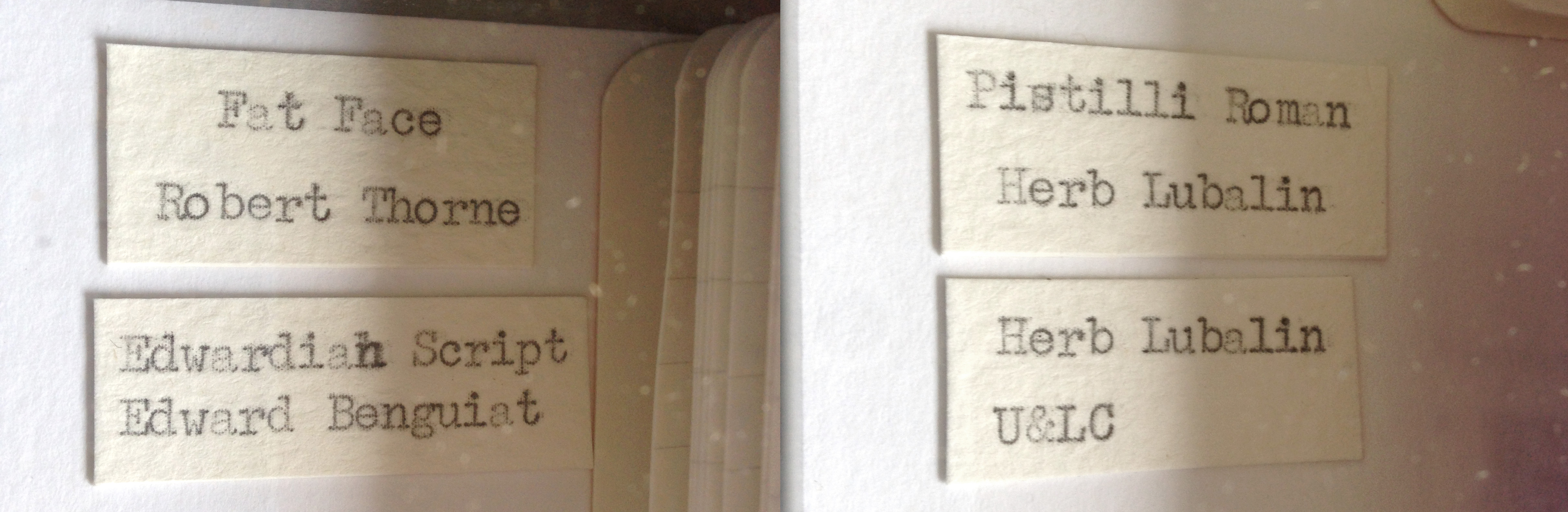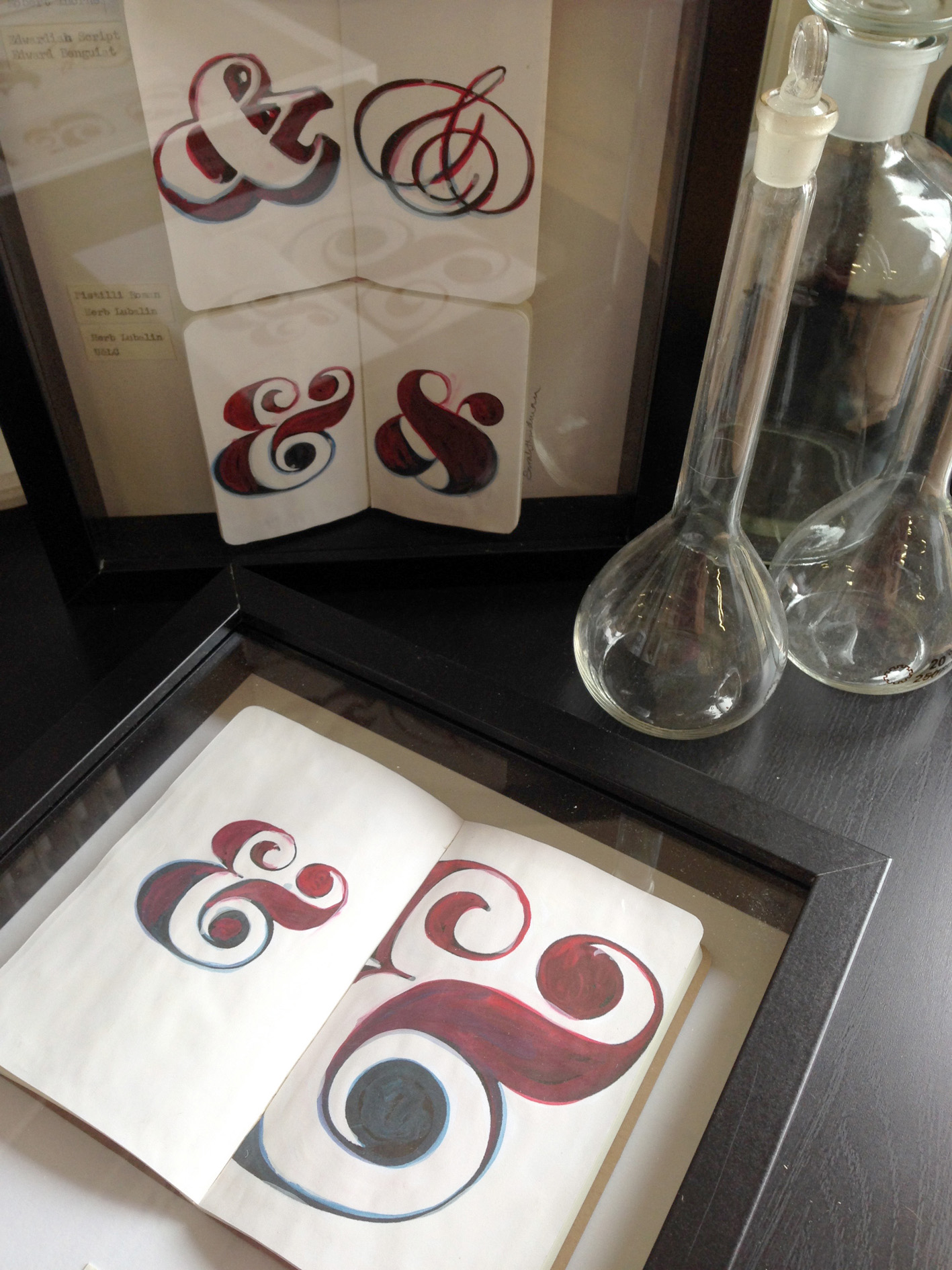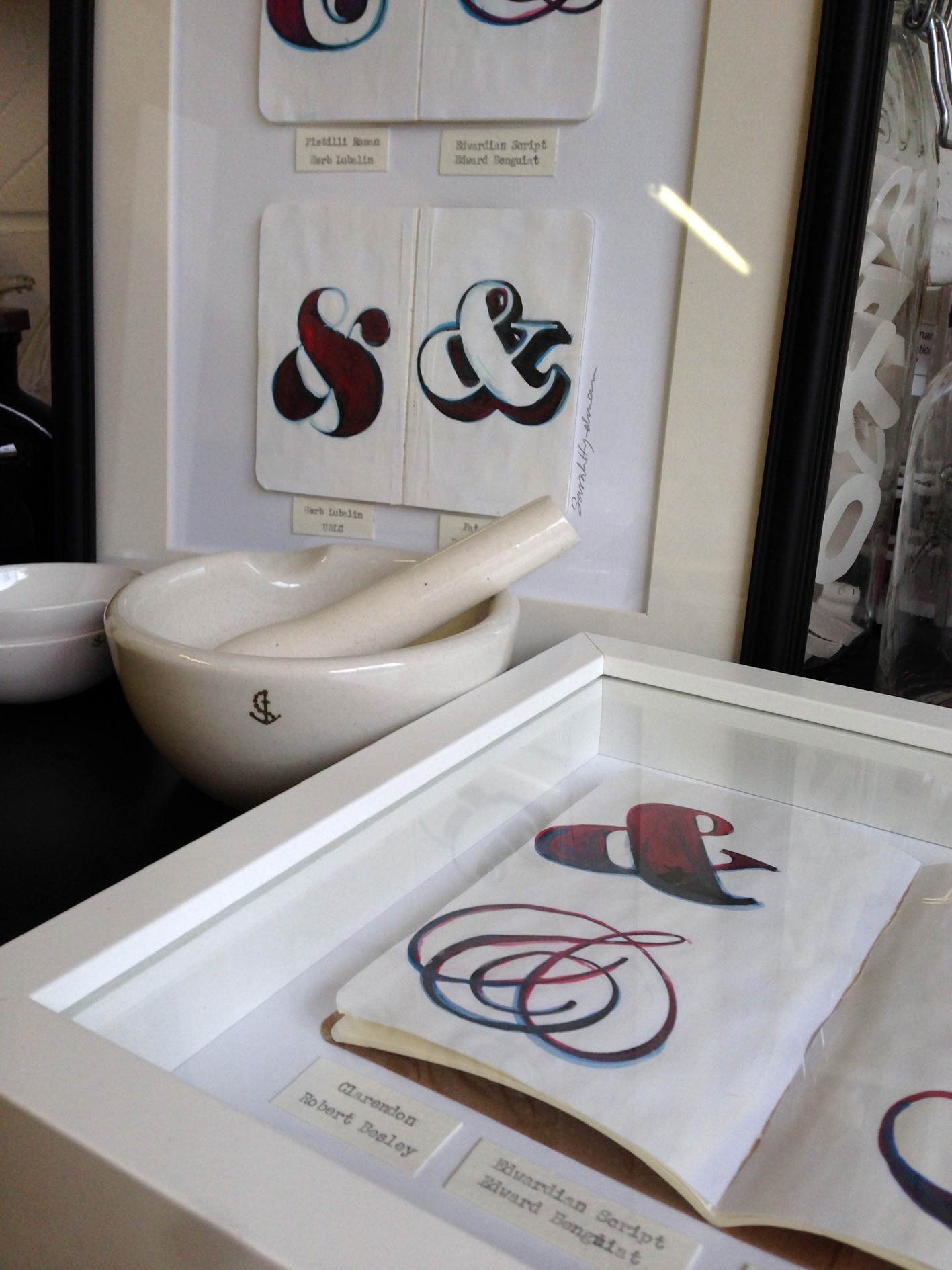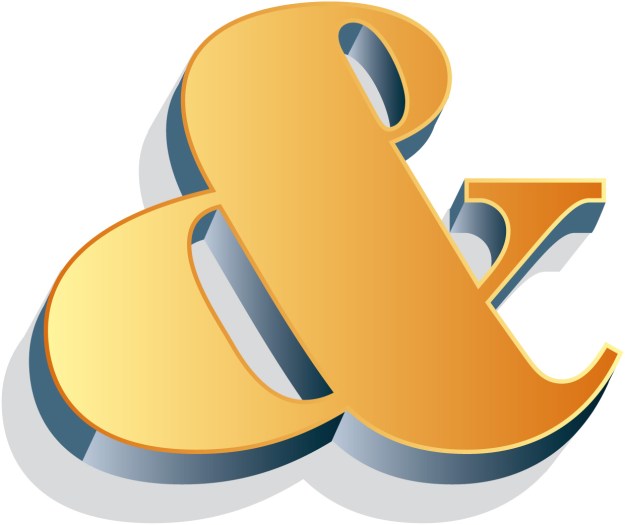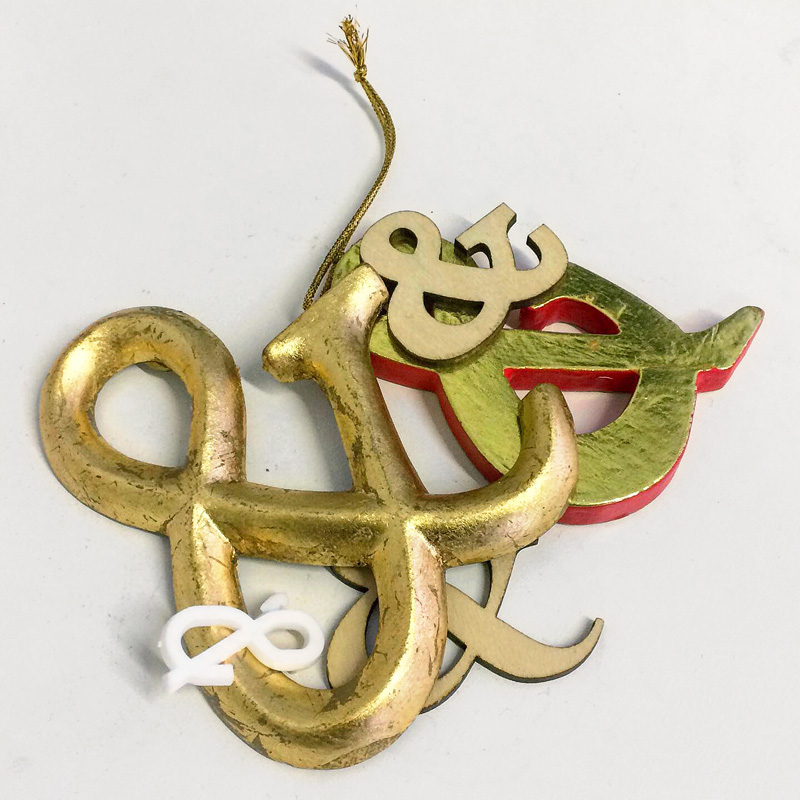
What do you call a collection of ampersands?
What’s the collective noun for ampersands?
I think that an ampersand is an invitation to imagine what will come next. It’s a continuation of an idea, a conversation or a story. The ampersand is sometimes considered to be the 27th letter of the Latin alphabet, originating from the letters ‘et’, Latin for ‘and’, which have been combined to create a single glyph. It’s a character that there is wide affection for and it gives a glimpse of the personality of a typeface without the commitment of being a particular letter.
I asked you what the collective noun might be to describe them, here are some of your inventive suggestions…
“An olding of ands…” Vinita Nawathe
“Admittedly, not a noun but an attribute: ampersandy” Bruno Maag @bruno_maag
“A ligature” Stuart Bannerman @stuartromsey
“A collaboration of ampersands” Julia Woollams @juliaw79
“A Flourish” Caroline Roberts @Copyright_RGD
The surprising story of the ampersand & its multiple personalities
An ampersand is an invitation to imagine what will come next. It is a continuation of a conversation or story, but without the context of knowing what went before you can choose where you would like it to go. When the symbol stands alone it is still communicating a huge amount of information from its form and its shapes; is it hand-written, is it old-fashioned and traditional, is it minimalist and modern? Every typeface tells a story independently of the words it spells out.
The ampersand is sometimes considered to be the 27th letter of the Latin alphabet. It comes from the letters ‘et’, Latin for ‘and’. It’s a character that there is wide affection for and it gives a glimpse of the personality of a typeface without committing to be a particular letter. The ampersand takes a wide range of shapes and forms, and it is the skill of the human brain that enables us to recognise that each of these still says ‘and’.